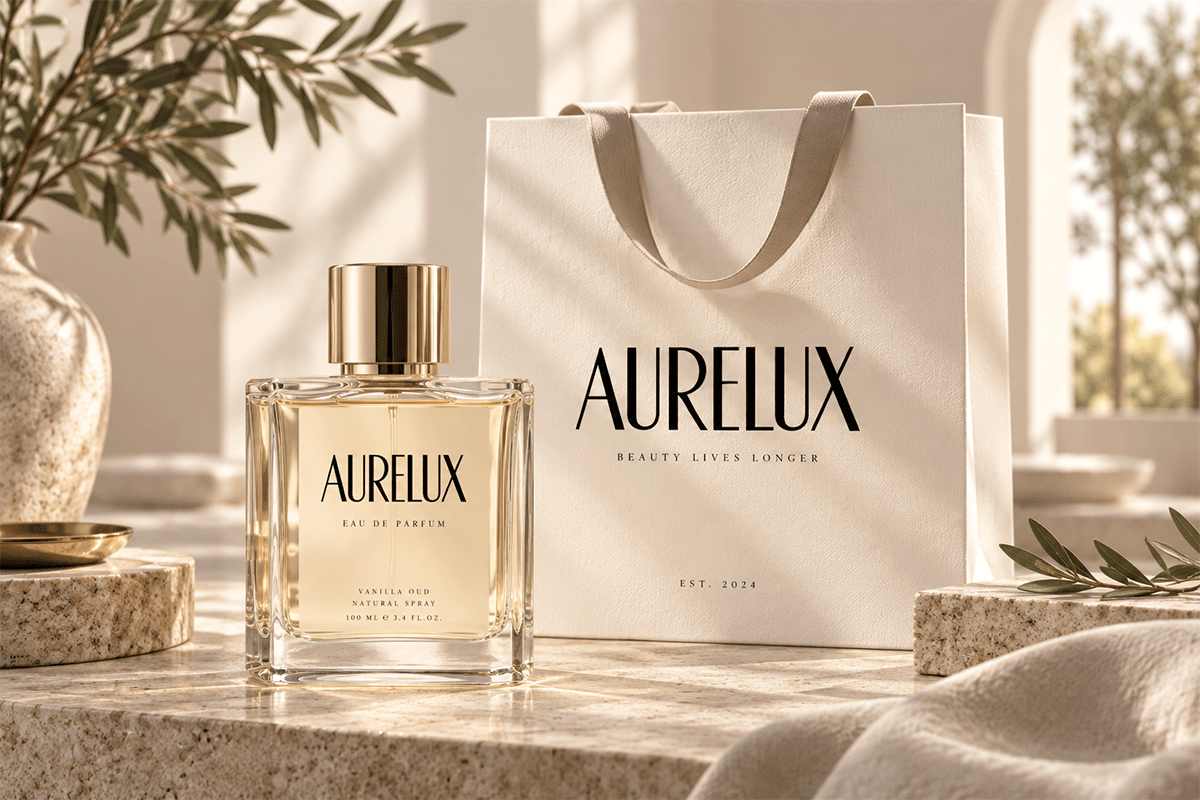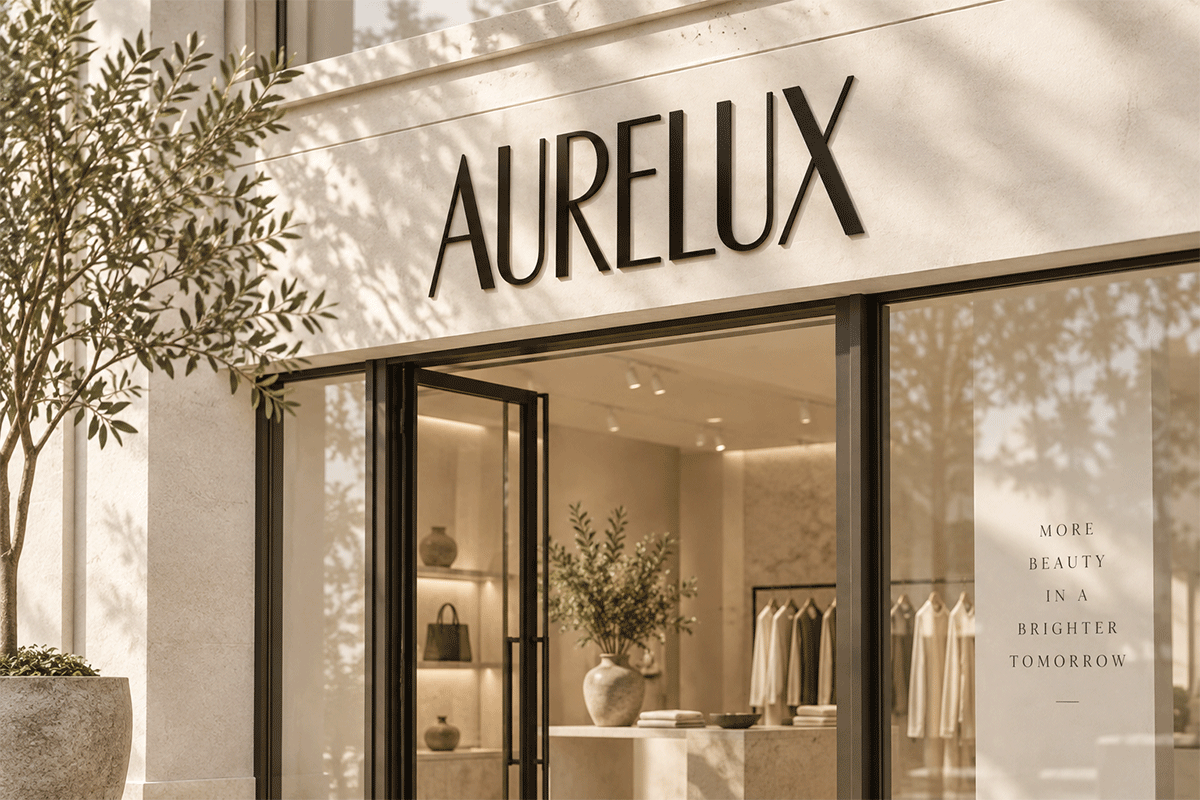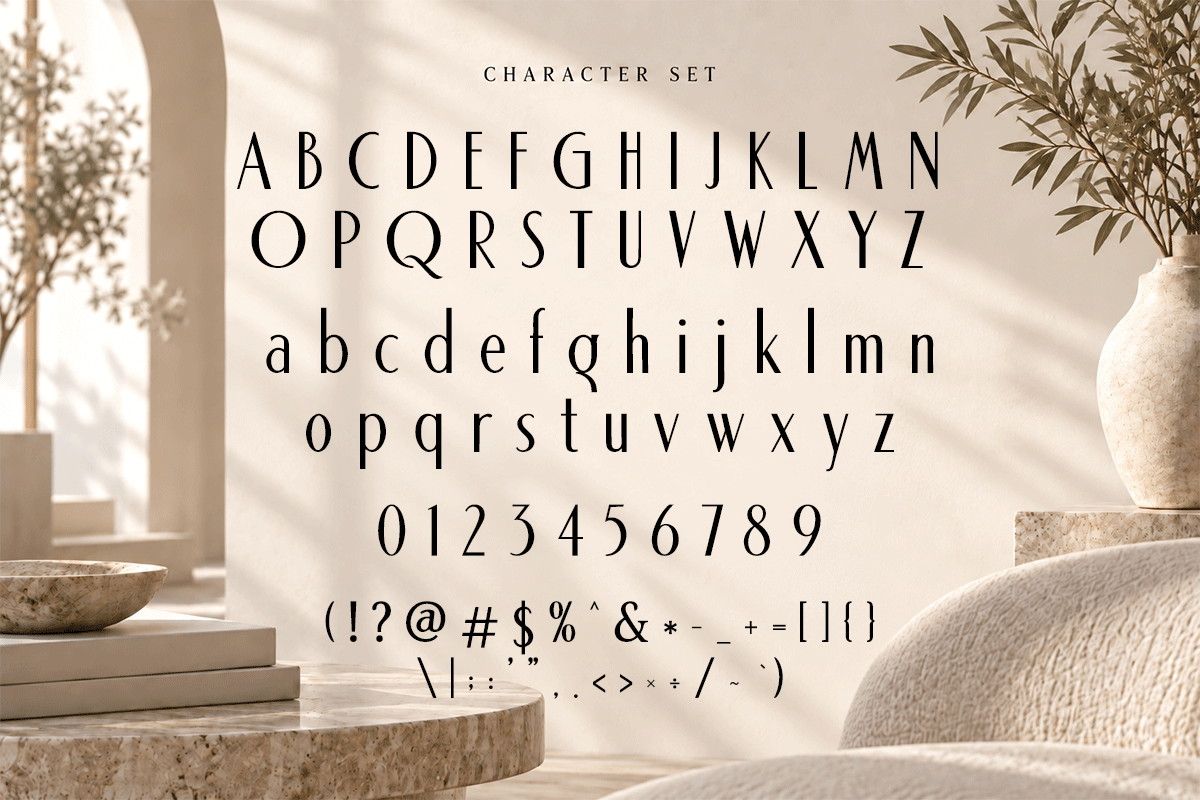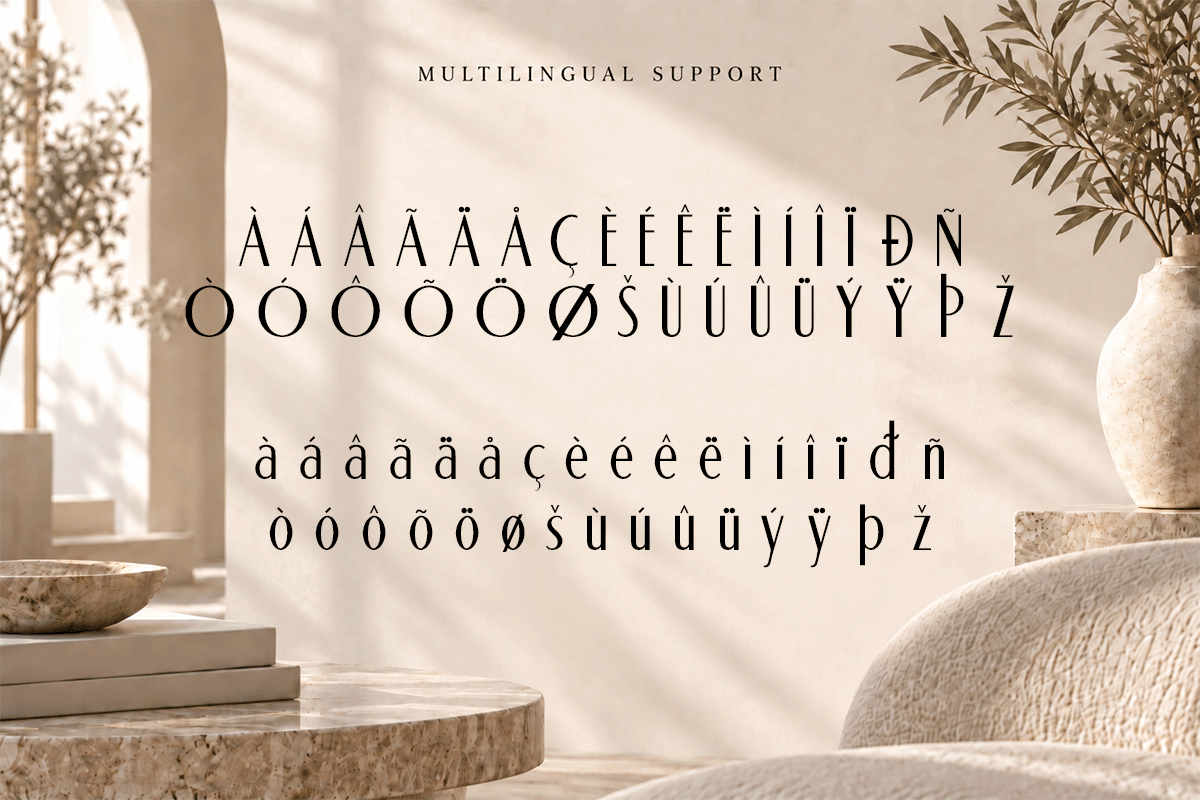
Aurelux A Modern Minimalist Sans Serif Font is a minimalist font built for creative work that needs a simple and refined personality. The design combines clean strokes, restrained details, and highly readable modern forms, giving the typeface a clear visual identity without sacrificing practical readability for display use.
Aurelux is especially effective for minimal branding, websites, editorials, packaging, logos, presentations, social media, and product design. It can carry the main visual voice in a logo or headline, while still feeling cohesive across supporting graphics, campaign assets, packaging, and branded content.
The typeface pairs the direction of a minimalist font with the character of a clean sans serif font. This makes it a strong option when you want typography that feels intentional, memorable, and closely matched to the project mood instead of using a generic display face.
Recommended for:
- Minimal Branding
- Websites
- Editorials
- Packaging
- Logos
- Presentations
- Social Media
- Product Design